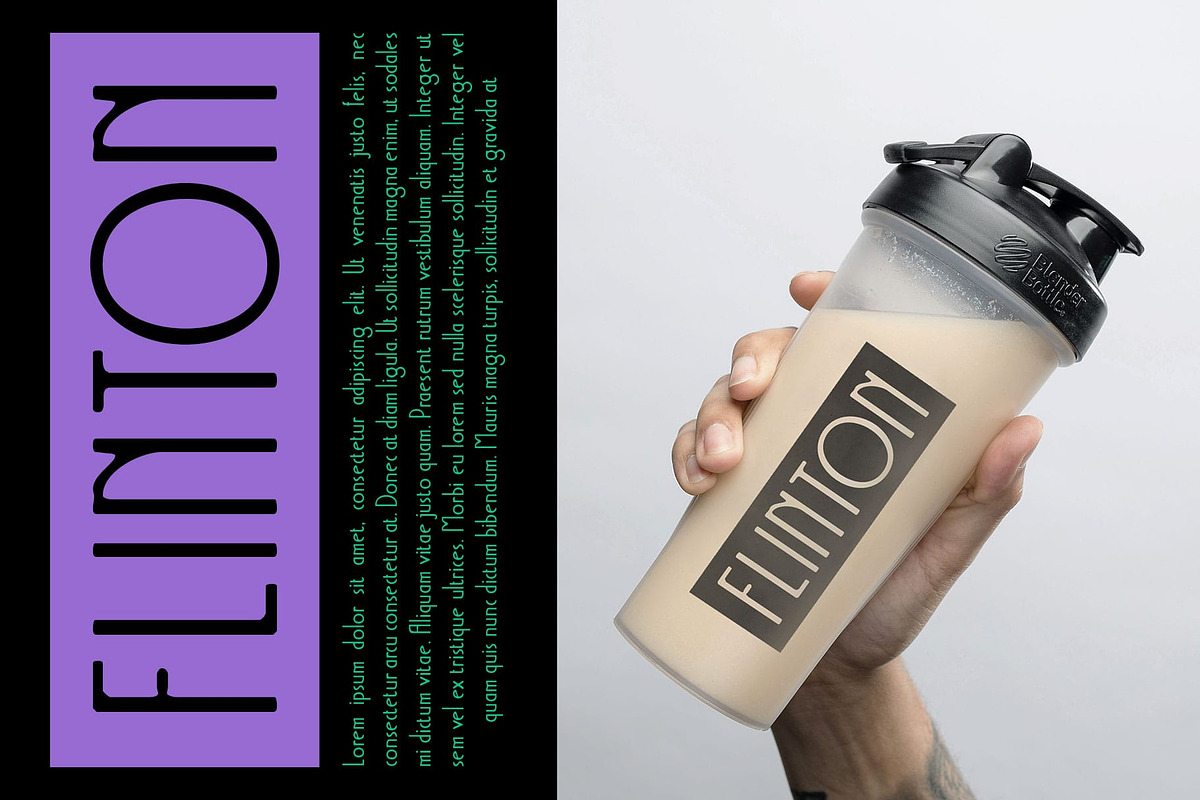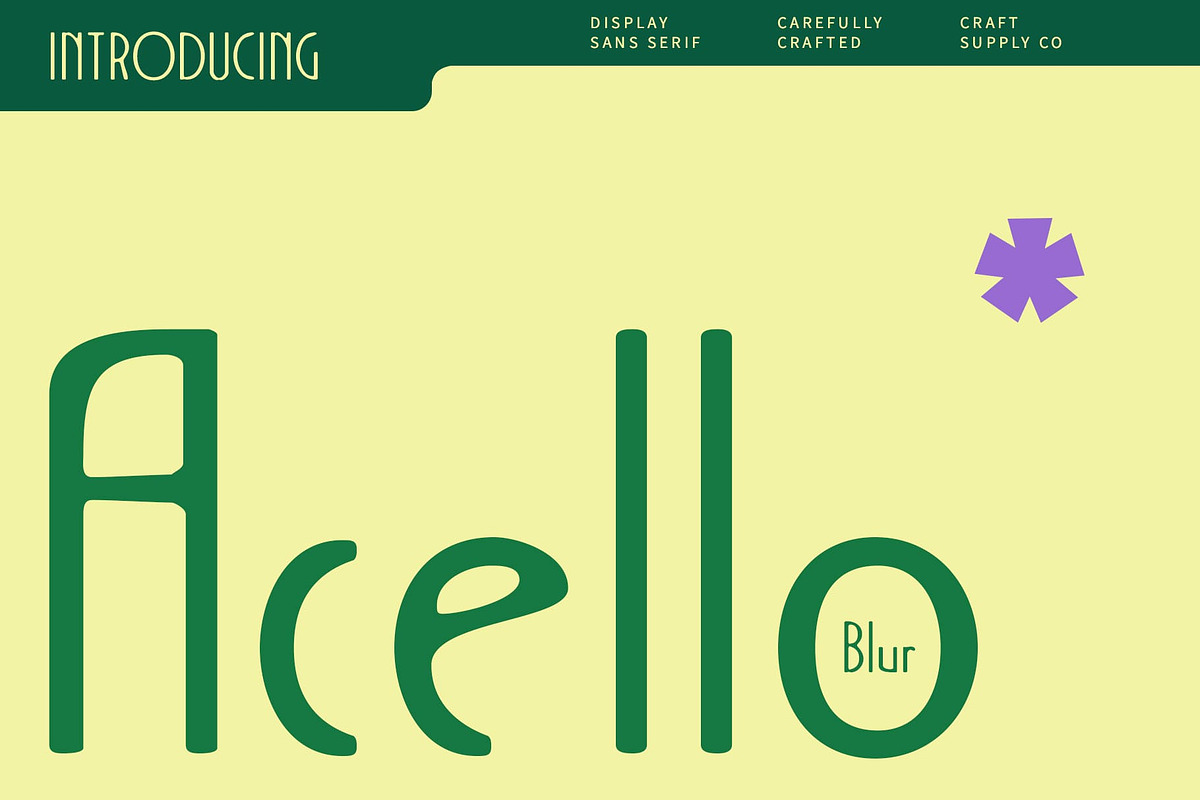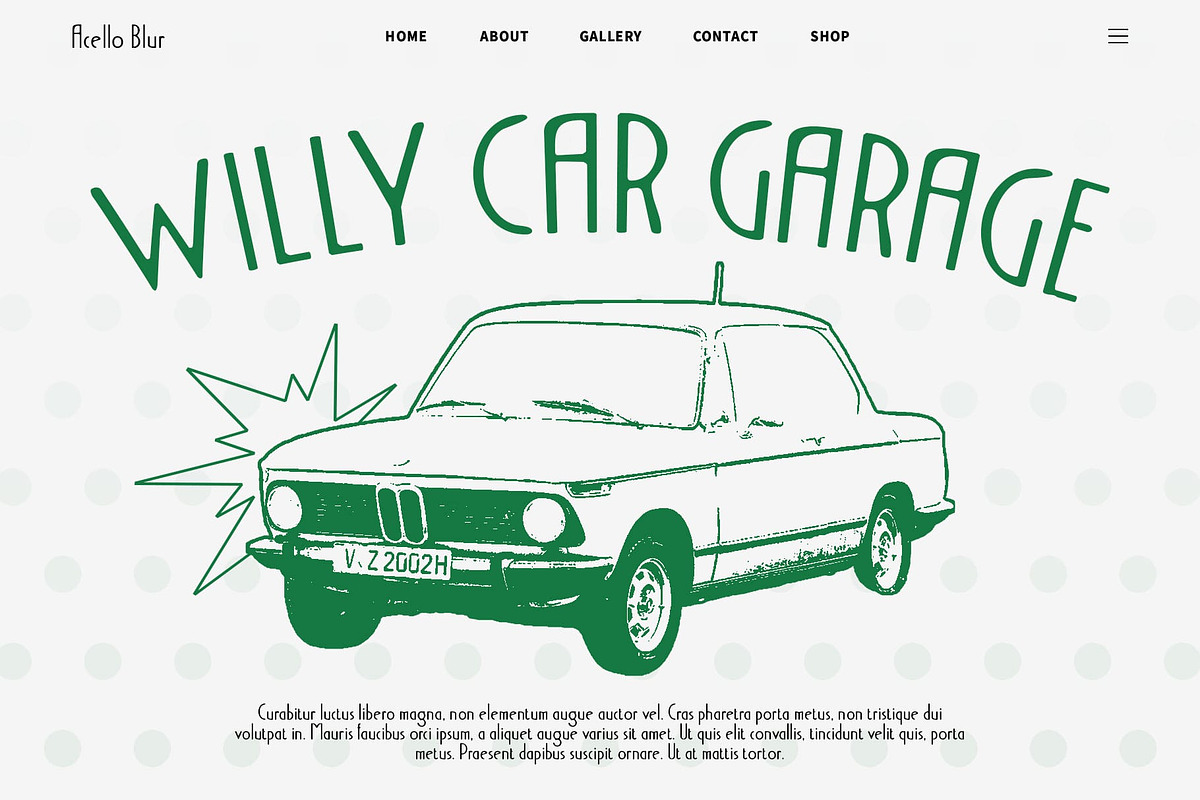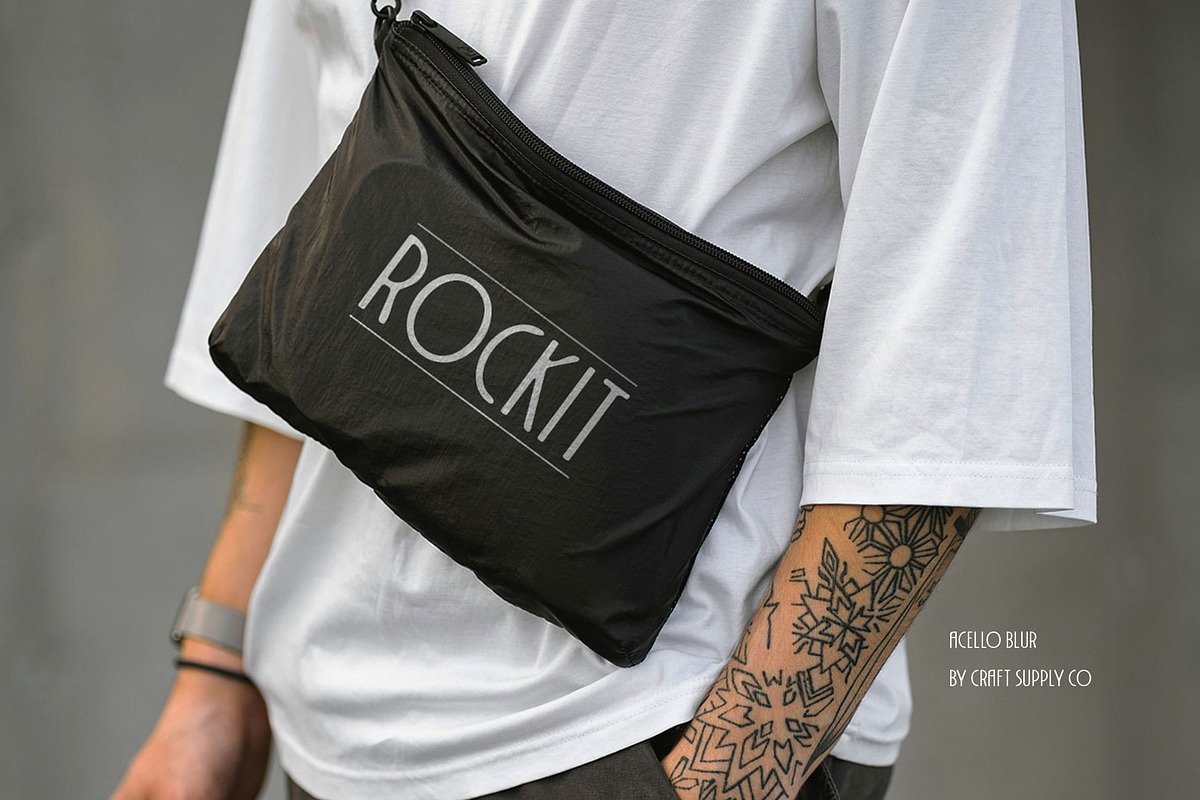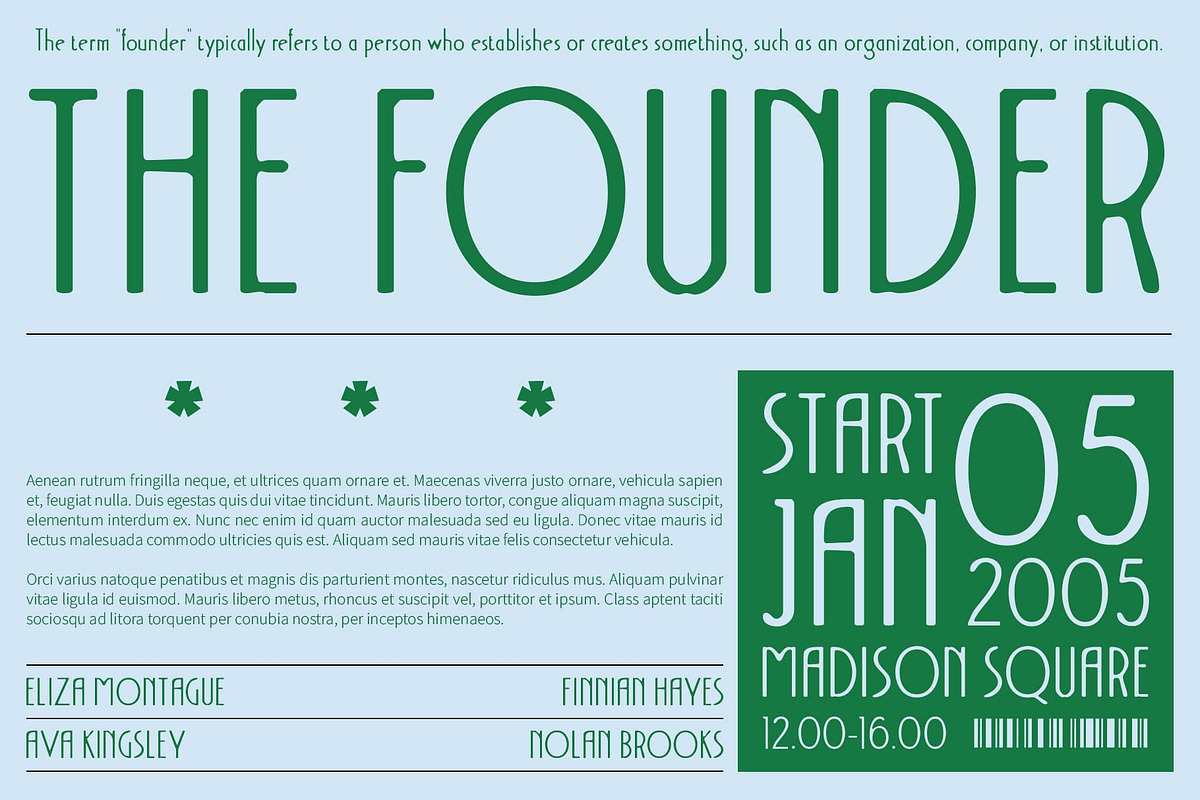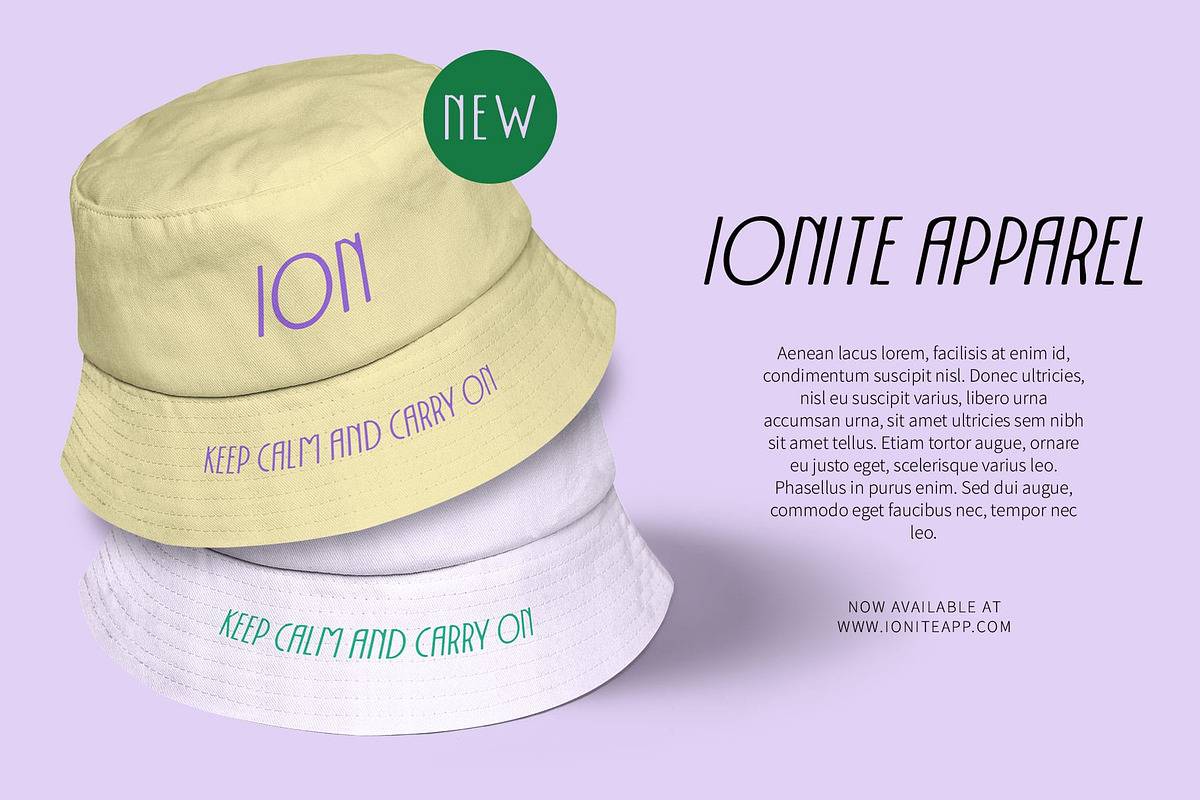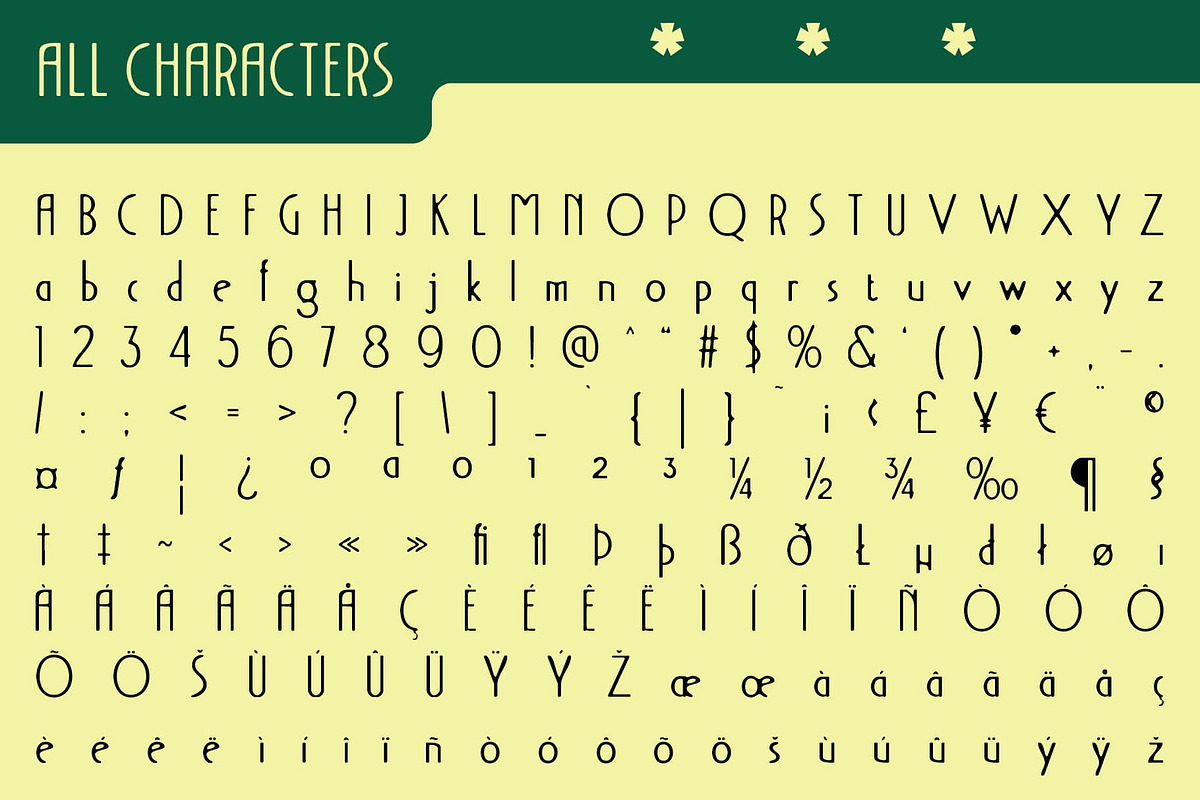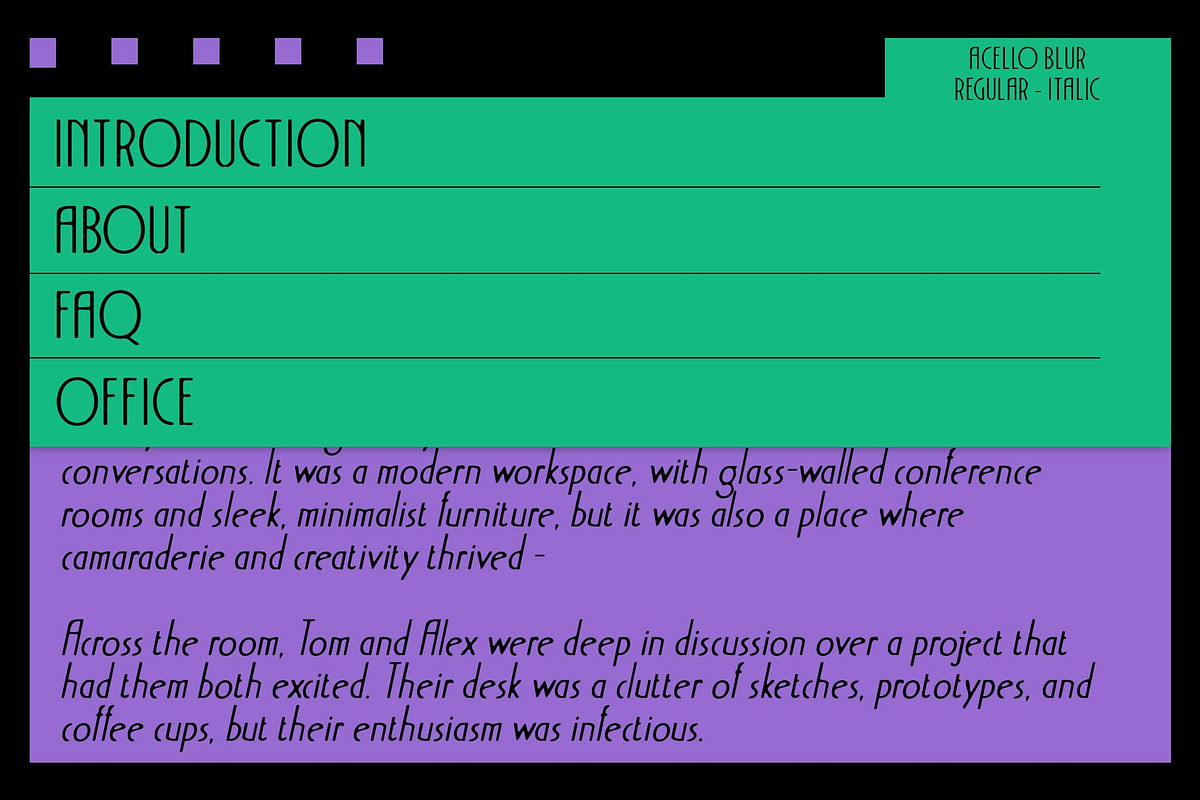
Acello Blur
Acello Blur Font: Futuristic Sans-Serif with Geometric Precision
Modern Sans-Serif with Blur Effect Acello Blur is a contemporary sans-serif font that merges clean geometric shapes with a subtle blur effect, delivering a unique and artistic aesthetic. Its precise lines and orderly forms establish a minimalist and modern look, ideal for forward-thinking designs.
Dynamic and Artistic Vibe The blur effect in Acello Blur adds visual depth and movement, transforming the font from merely functional to strikingly dynamic. This artistic twist elevates the font, making it perfect for creative projects that aim to stand out with innovative design elements.
Ideal for Contemporary Branding Whether used in branding, digital applications, or other creative ventures, Acello Blur brings a futuristic flair. Its combination of geometric precision and artistic blur makes it a captivating choice for designs that demand a fresh, modern, and visually engaging appearance.
Versatile for Digital and Creative Projects From sleek logos to cutting-edge digital interfaces, Acello Blur offers versatility and style. Its modern design ensures it fits seamlessly into a variety of projects, providing a unique touch that enhances any visual composition.